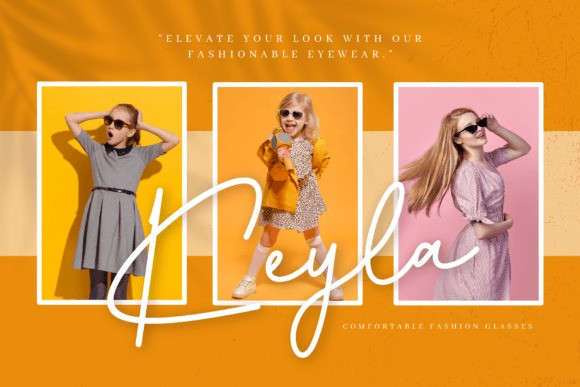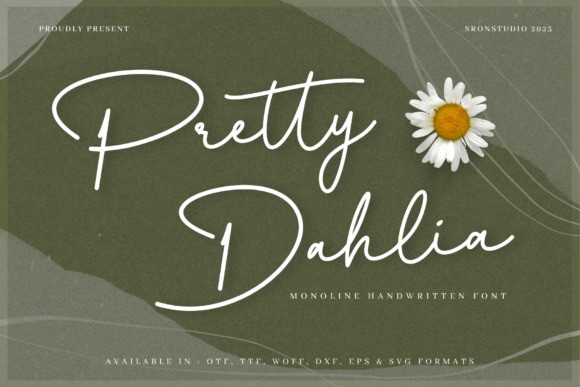
Pretty Dahlia Font
Pretty Dahlia Font is a stylish script font that features intricate alternates and ligatures. The font is designed with a delicate touch, creating a whimsical and romantic feel. The alternates and ligatures are carefully crafted to seamlessly connect characters, adding an elegant and sophisticated look to any design. The overall effect is a unique and charming font that is perfect for wedding invitations, branding, or any project that requires a touch of beauty and grace. With its graceful curves and intricate details, “Pretty Dahlia” is sure to make any text stand out and capture the attention of viewers.